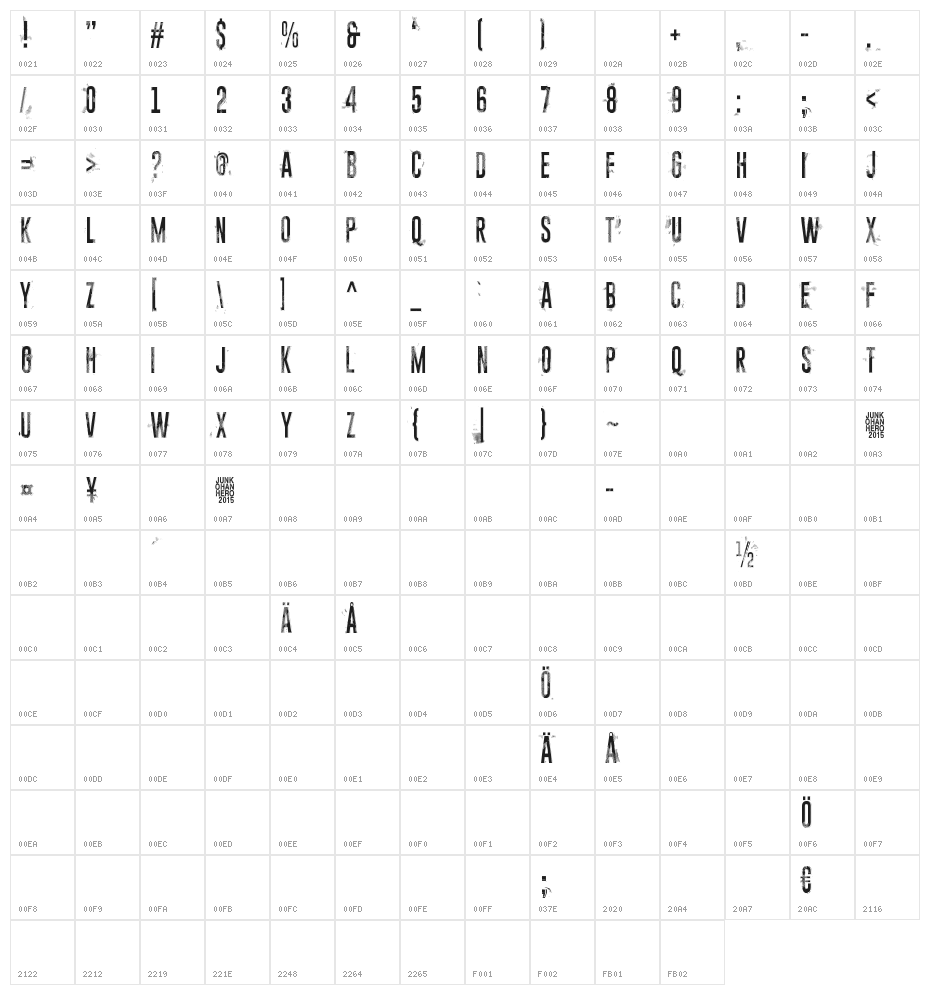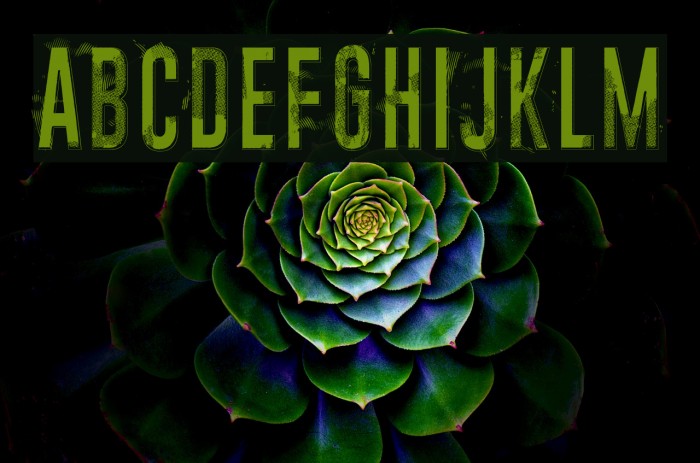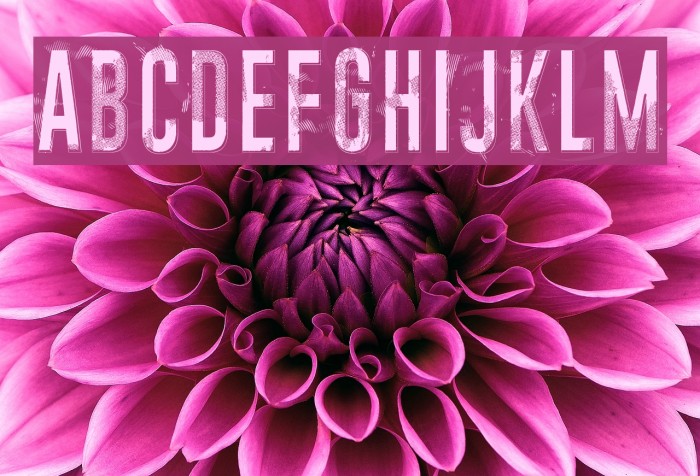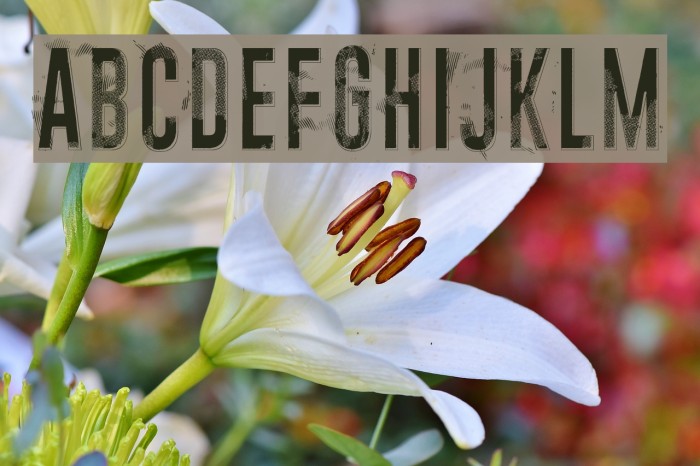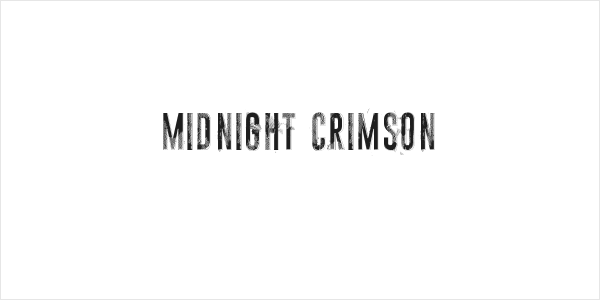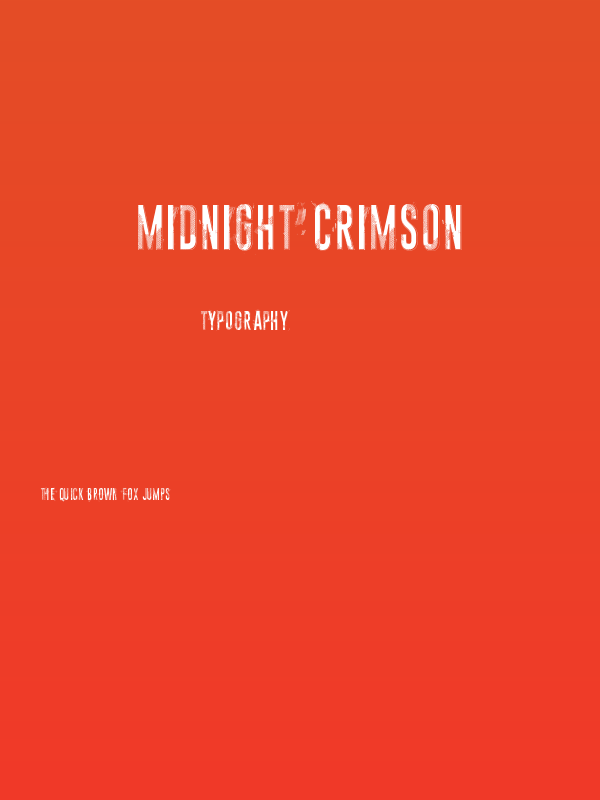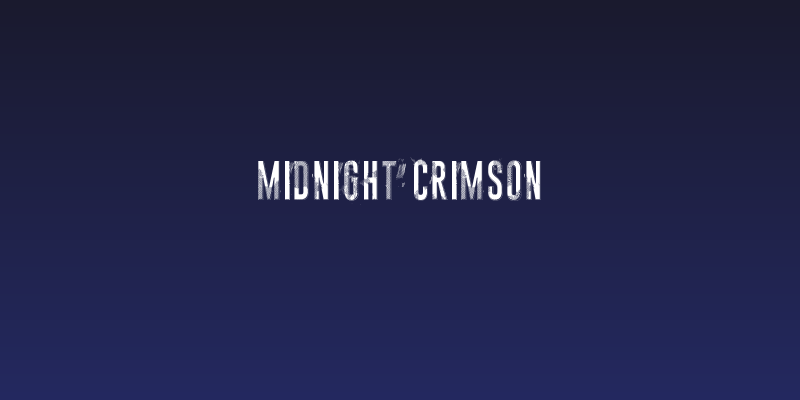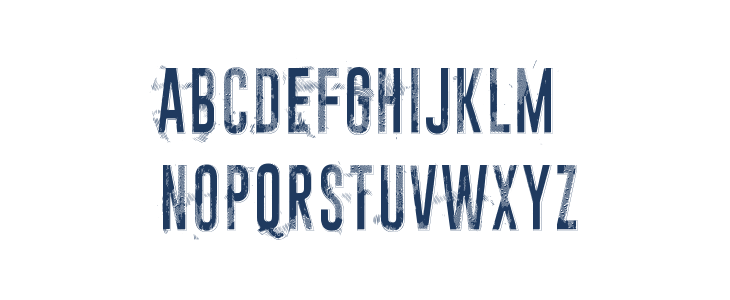
Midnight crimson Font
Midnight crimson Description
This font features a bold and distressed style, characterized by its textured and worn appearance. The uppercase letters are tall and narrow, with a slightly condensed form that adds to its striking presence. The numbers and special characters maintain this rugged aesthetic, making it ideal for designs that require a gritty, urban feel. The font's unique texture gives it a vintage, industrial look, perfect for projects that aim to convey a sense of rawness and authenticity. Its boldness ensures it stands out, making it suitable for attention-grabbing headlines and titles.
| Proposed Projects | Ideal for posters, album covers, branding for edgy or industrial-themed products, and any design needing a bold, gritty aesthetic. |